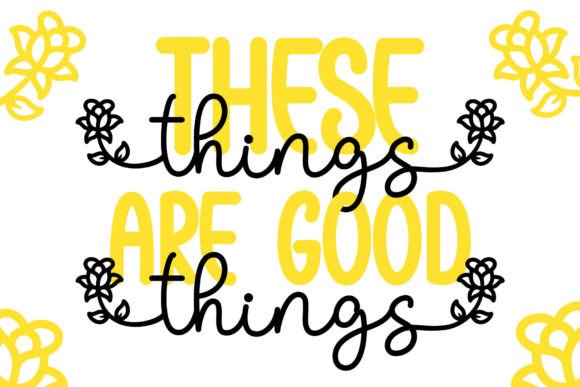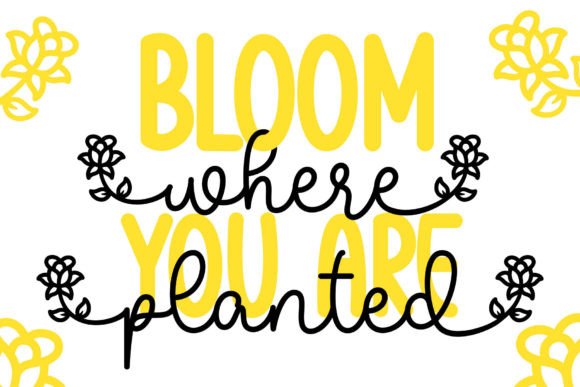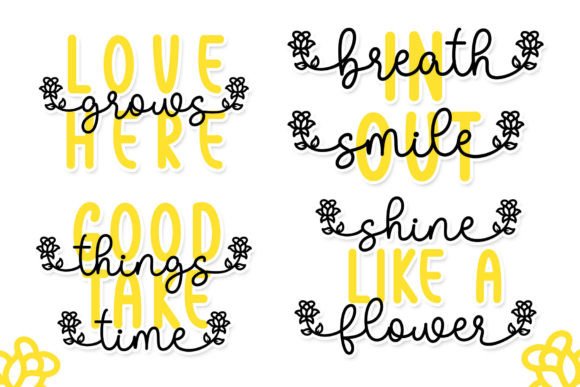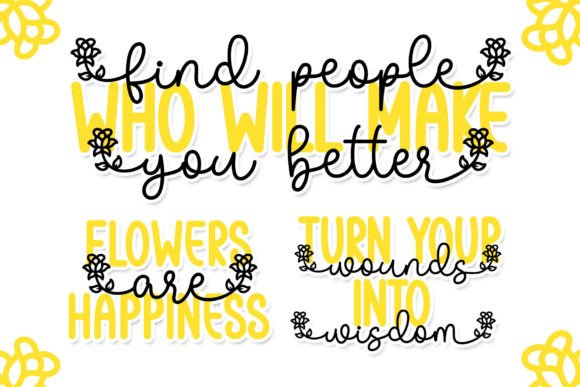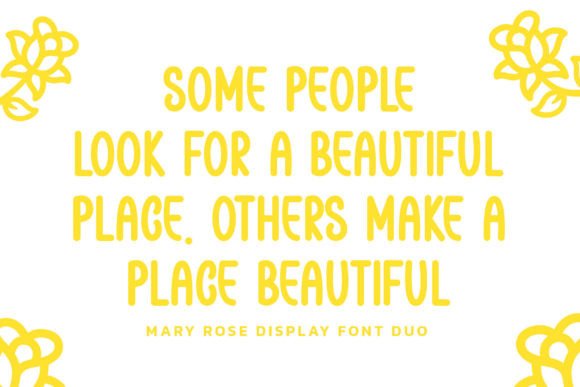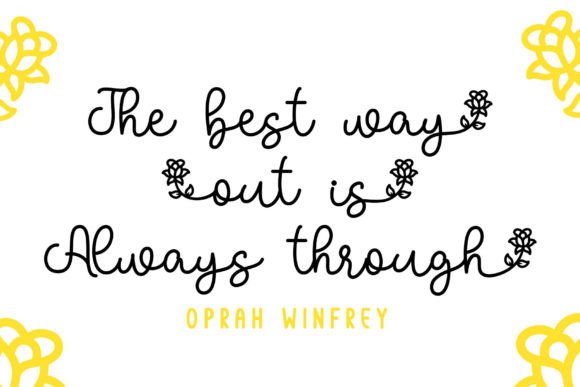
Introduction to Rose Mary Duo Font
As a designer, there’s nothing quite like the thrill of bringing a creative project to life. You’re sitting at your desk, surrounded by sketchbooks, colored pencils, and a blank canvas waiting for inspiration. Suddenly, a beautiful rose catches your eye, and you’re off and running with a fresh idea. This is exactly what happened with the Rose Mary Duo Font, a charming and playful typeface duo that’s perfect for kids’ products, girly designs, and any project that needs a touch of whimsy.
With its script monoline and sans display styles, this versatile font is a valuable resource for designers looking to add a personal touch to their work. The Rose Mary Duo Font is PUA encoded, making it easy to access all of its glyphs and swashes, even on a transparent background. Whether you’re working on a high-quality design or a simple logo, this font is sure to be a hit.
- Unique characteristics: elegant, cursive script with a touch of whimsy, making it perfect for invitations, quotes, and other creative applications.
Honest Review: Rose Mary Duo Font
I recently had the chance to work with the Rose Mary Duo Font and I must say it’s been a delightful experience. As a designer, I’m always on the lookout for high-quality design resources to elevate my creative projects.
One of the standout features of the Rose Mary Duo Font is its beautiful and elegant script style. It’s perfect for adding a touch of sophistication to any design, whether it’s a wedding invitation, a branding project, or even a simple quote overlay.
- ✨ Beautiful script style with a lot of character
- ✨ High-quality design that’s perfect for print and digital projects
- ⚠️ Limited font sizes and styles, which might not be suitable for all projects
- ⚠️ Requires a transparent background to showcase its full beauty
Overall, I’m impressed with the Rose Mary Duo Font and would definitely recommend it to designers looking for a high-quality, elegant script font. With a little creativity, you can achieve amazing results with this design resource.
Introduction to Rose Mary Duo Font